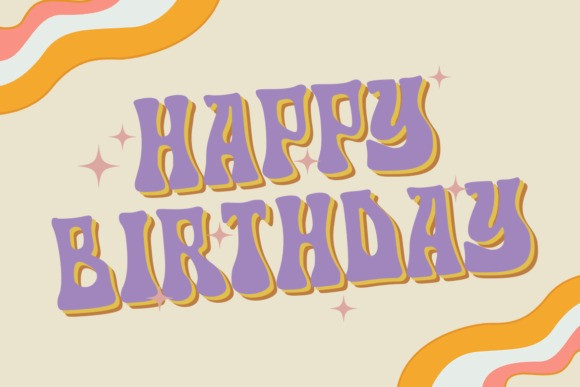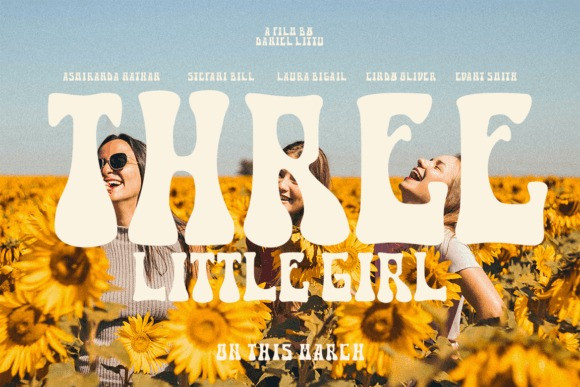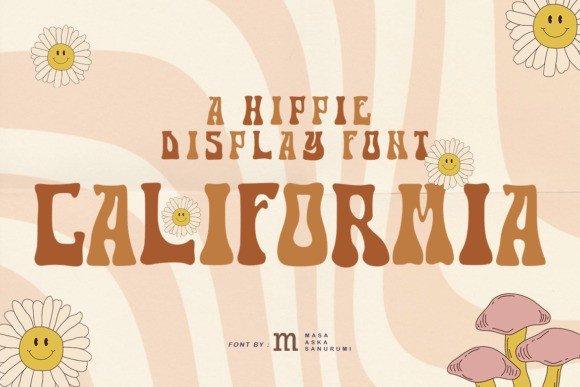
Califormia Font
Califormia Font feels playfully nostalgic and delivers an incredible vintage retro aesthetic. Use this display font to add that special retro touch to any design idea you can think of! Masterfully designed to become a true favorite, this font has the potential to bring each of your creative ideas to the highest level!